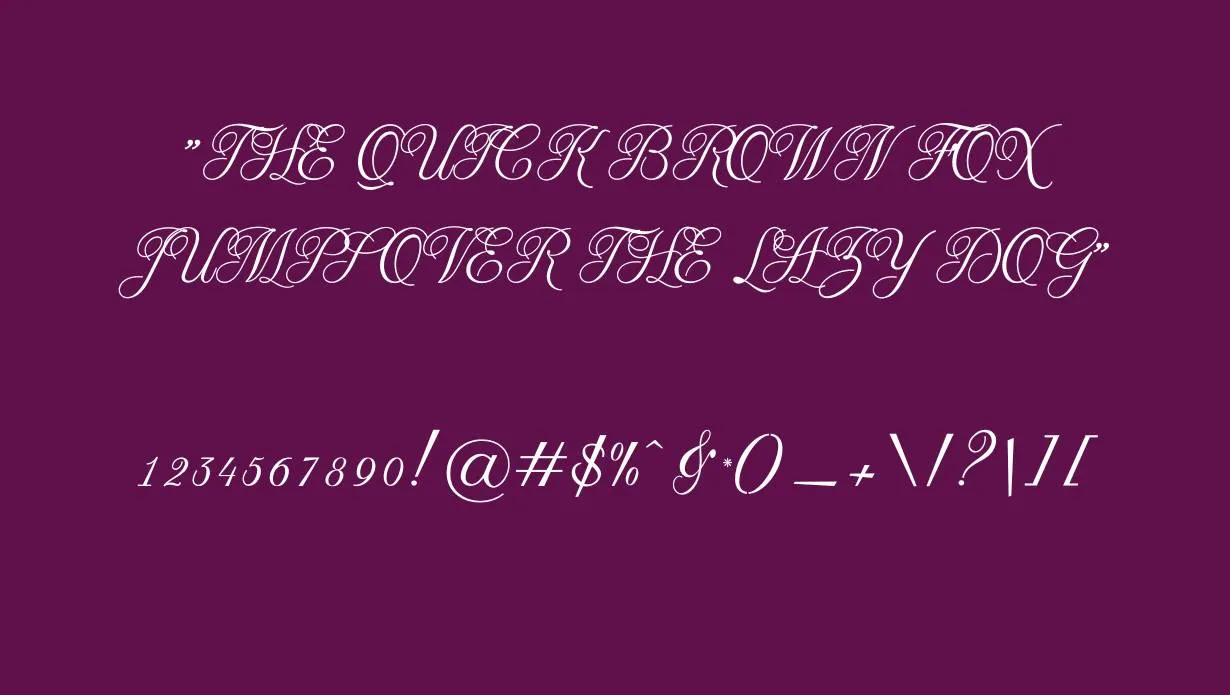
Olivia Font is a playful and imaginative script typeface that captures the natural flow of handwriting.
It’s often used in personal blogs, product packaging, and branding materials to create a casual and friendly atmosphere in design.
Its informal and approachable style adds a sense of personal touch to your work.